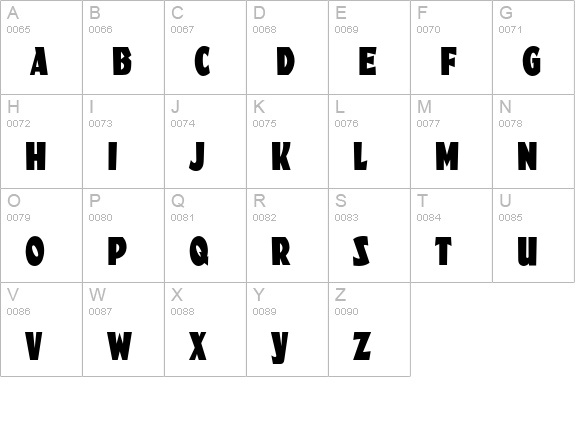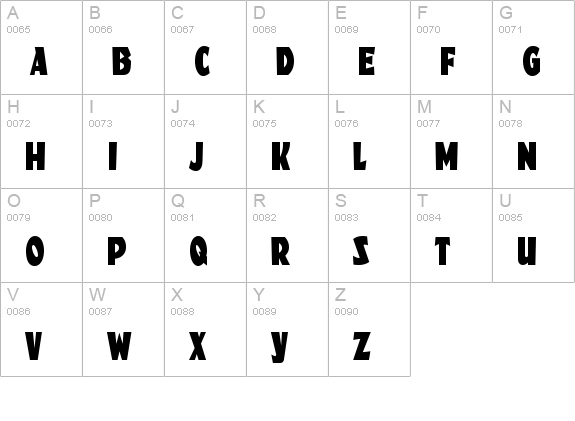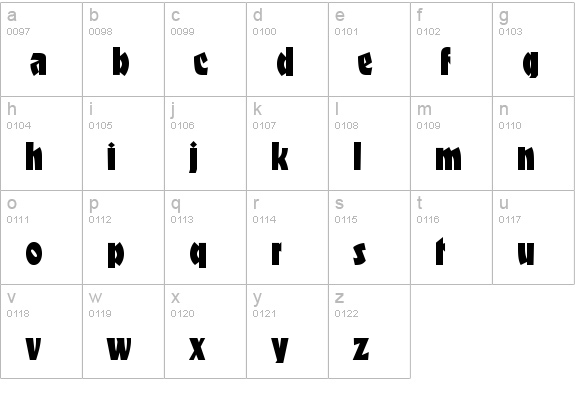
Fanfare Condensed Font Details
Fanfare Condensed is a distinctive, condensed-width variant in the Fanfare typeface family \xE2\x80\x94 well suited to design and typography projects.
Fanfare Condensed is a modern and elegant typeface that exudes sophistication and style. With its sleek lines and unique letterforms, this font is perfect for creating eye-catching designs that stand out. Whether you're working on a poster, logo, or website, Fanfare Condensed will bring a touch of class to your projects. The best part? Fanfare Condensed is available for free download at FontsMarket.com. That's right, you can easily access this stunning font at no cost, making it a valuable addition to your font collection. Don't miss out on the opportunity to elevate your designs with Fanfare Condensed - download it now and add a touch of elegance to your next project.